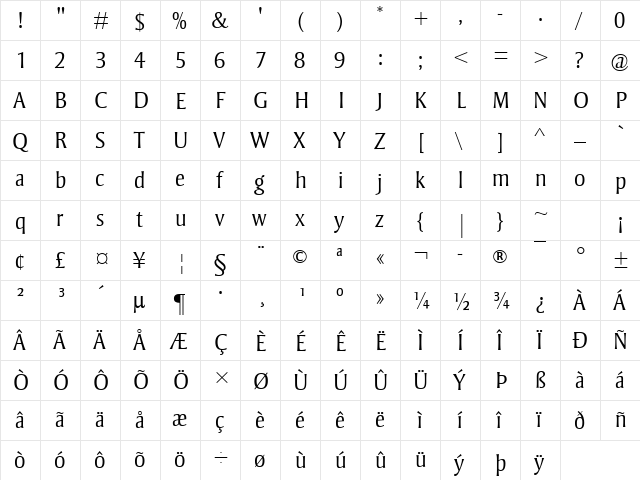
Strayhorn MT Light Regular
| Foundry | Agfa Monotype Corporation |
Design Context for Strayhorn MT Light Typeface
Strayhorn MT Light takes a measured approach to typography — its balanced proportions and neutral character make it a reliable workhorse for both digital and print work. The delicate stroke weight brings airiness and refinement to layouts.